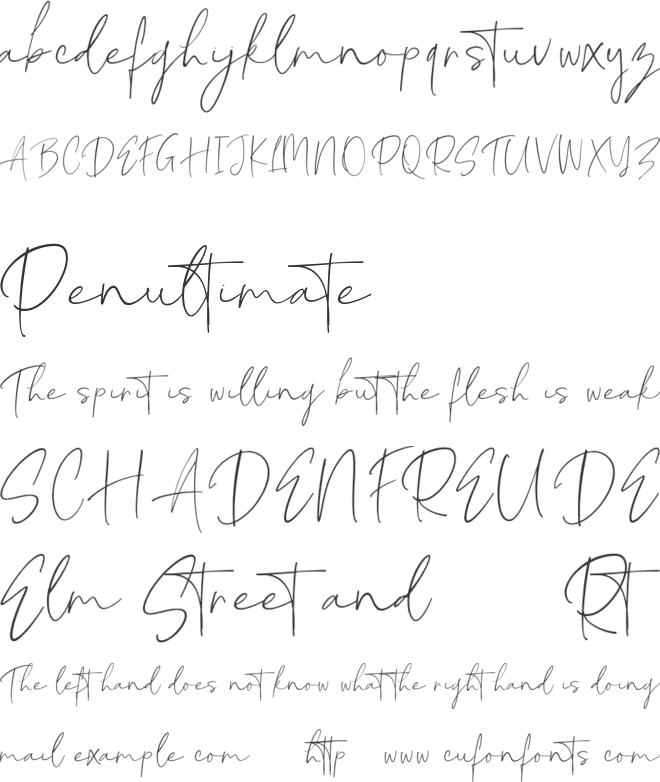
Mackle Script DEMO Font
We believe that every person have different handwriting style. That makes it so special, but writing every words for the design needs must be tiring. So here comes the time saver couple for you. Please welcome, Mackle. A pair of contrast serif and loose handwriting fonts. Carefully crafted to be the best pair for your sweetest branding needs.
Mackle Script DEMO font preview